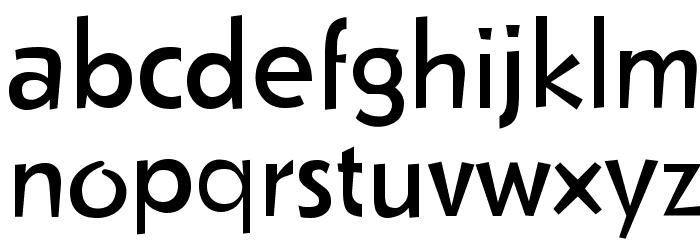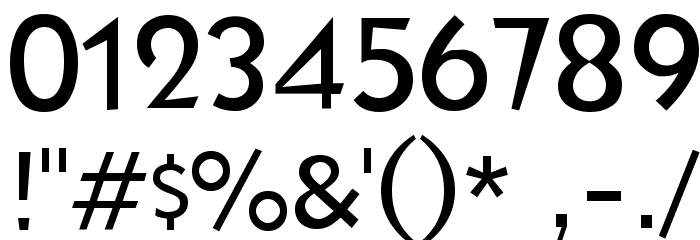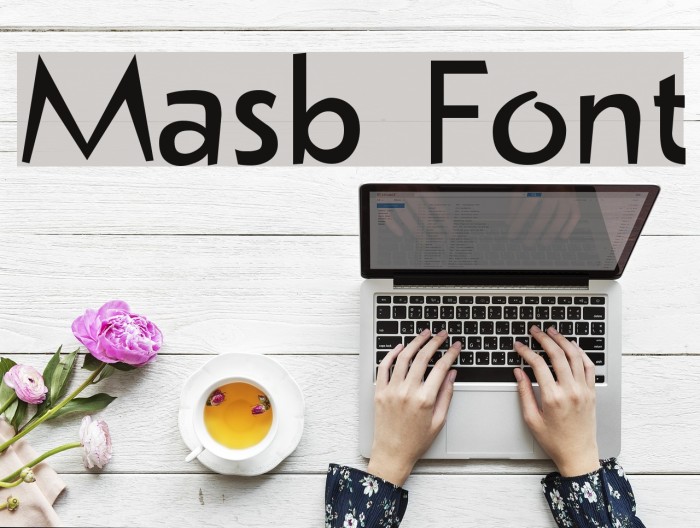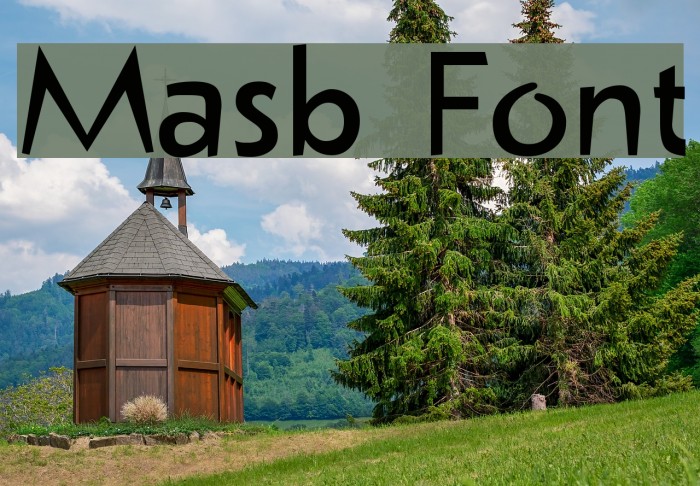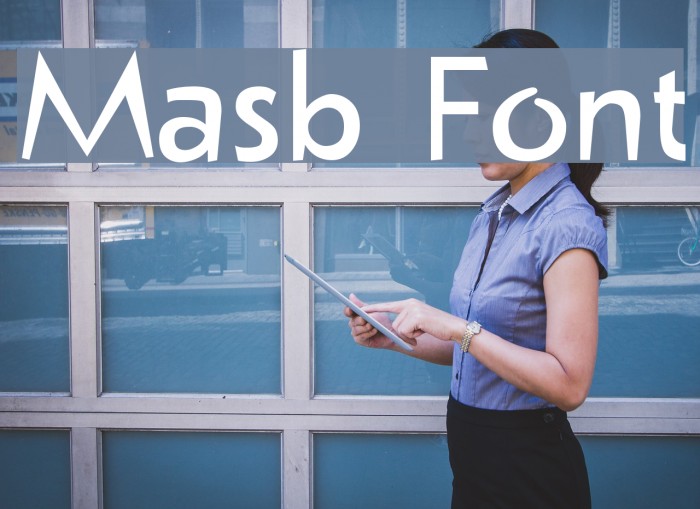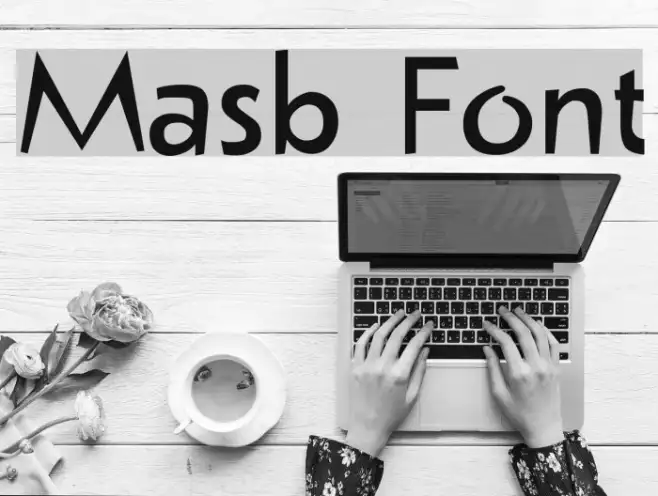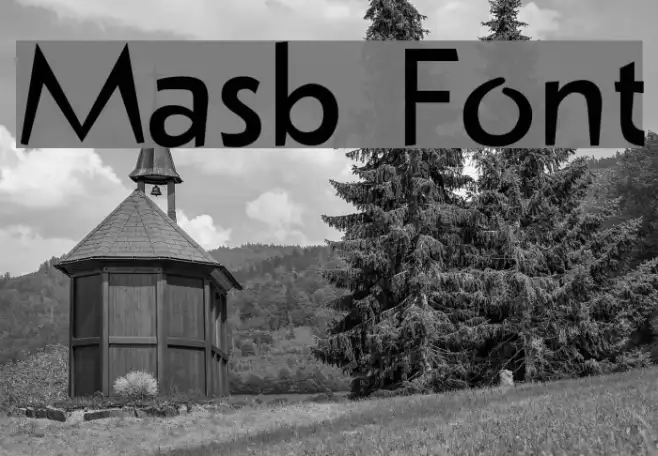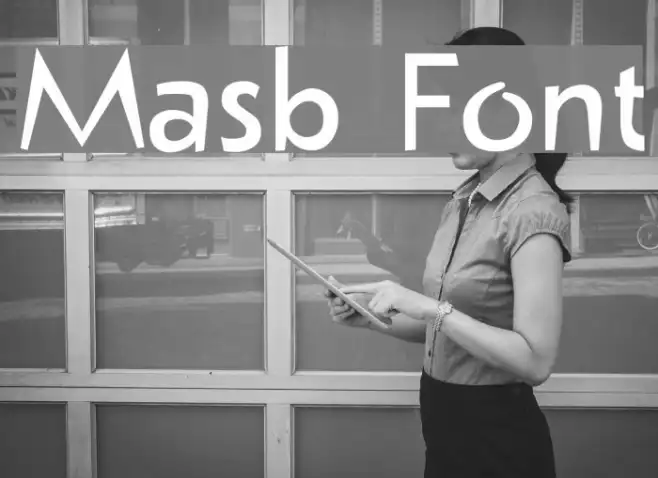
Masb Font
This font features a clean and modern sans-serif style with a geometric influence. The characters are well-proportioned, with a consistent stroke width that gives it a balanced and harmonious appearance. The uppercase letters are bold and assertive, while the lowercase letters maintain a friendly and approachable feel. The numerals are clear and easy to read, making them suitable for various applications. Special characters are included, offering versatility for different design needs. The overall design is sleek and contemporary, making it ideal for modern branding and digital interfaces.
- Proposed Projects: Ideal for branding, digital interfaces, advertising, and editorial design.